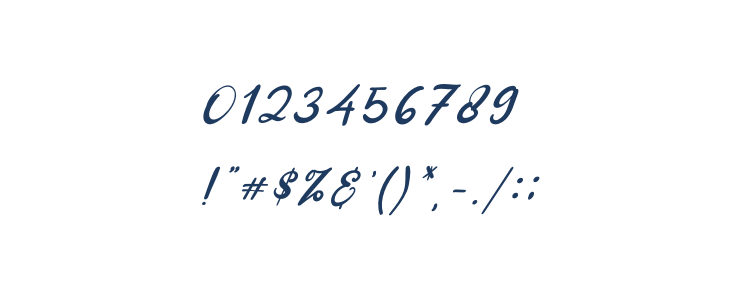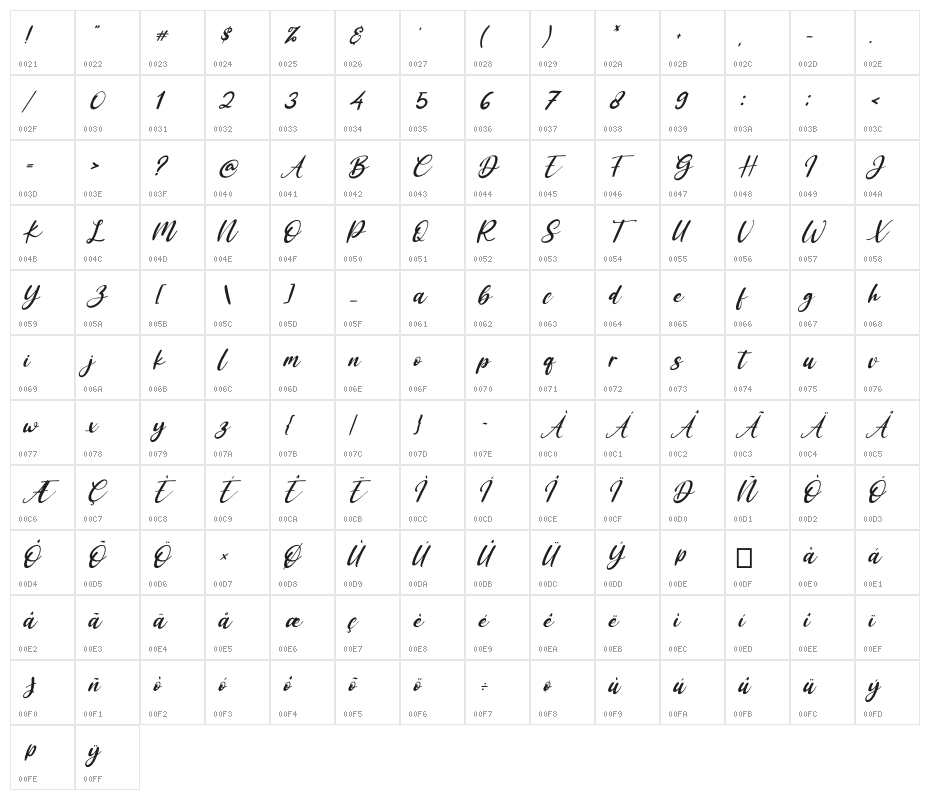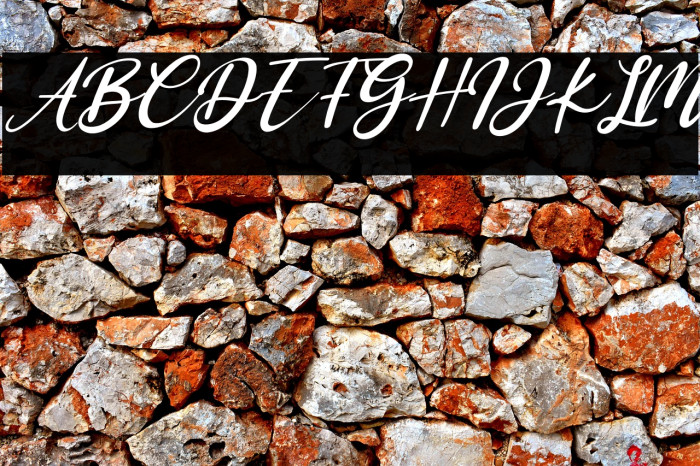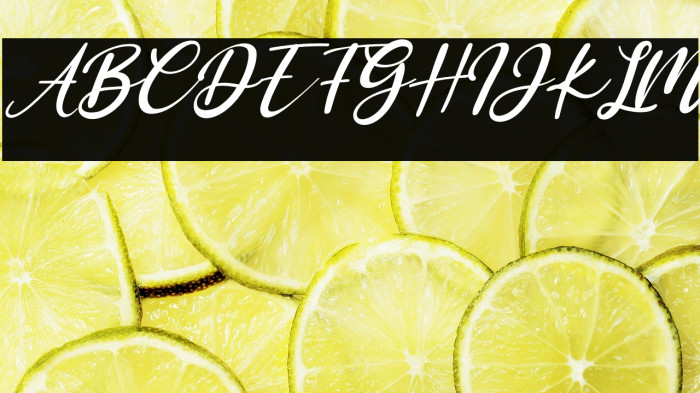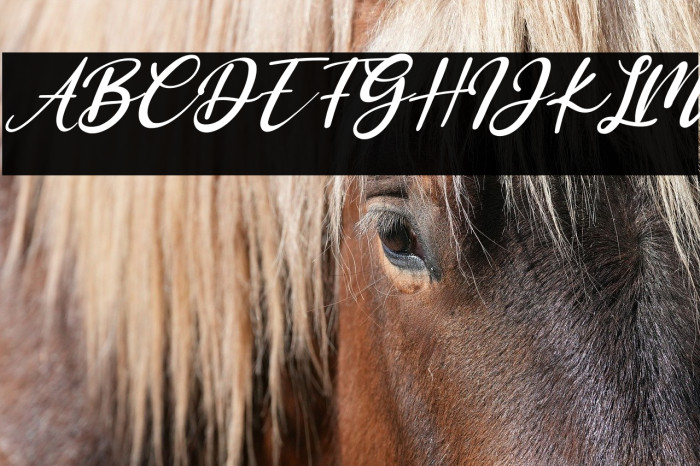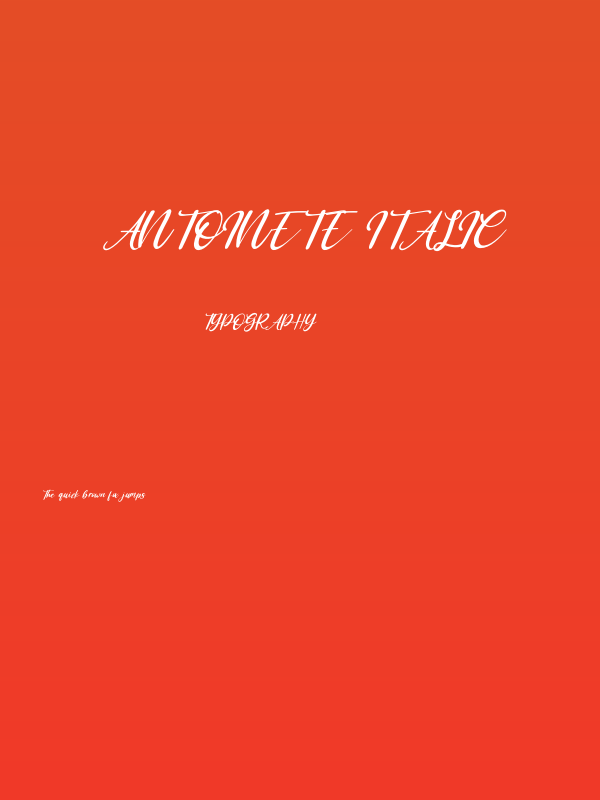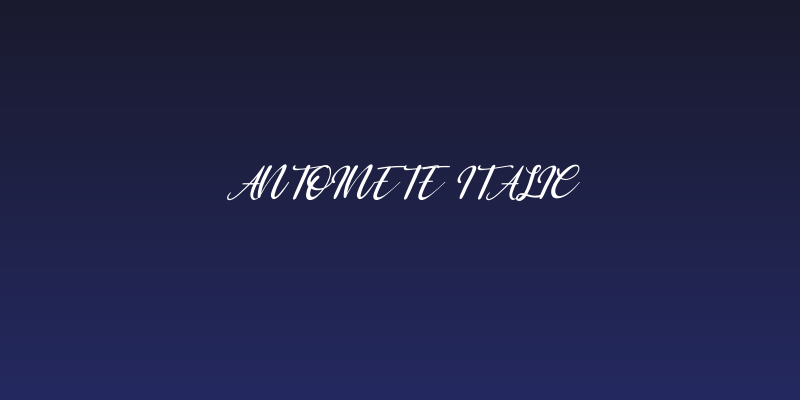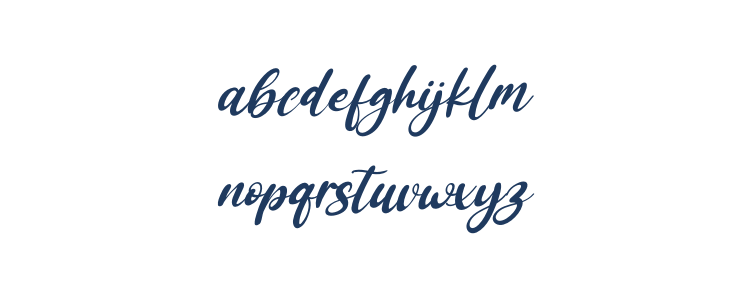
Antoinete Italic Font
Antoinete Italic Description
This elegant script font features a flowing, cursive style with a sophisticated and artistic flair. The letters are connected smoothly, creating a sense of fluidity and movement. Each character is crafted with a slight slant, enhancing its italic nature. The strokes vary in thickness, providing a medium contrast that adds depth and interest to the text. The font exudes a sense of grace and refinement, making it ideal for formal and decorative applications. Its intricate design is both eye-catching and legible, suitable for a variety of creative projects.